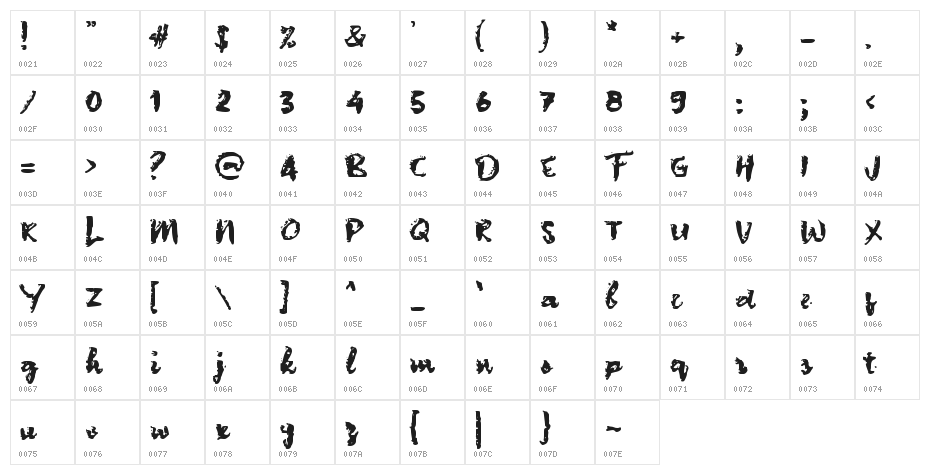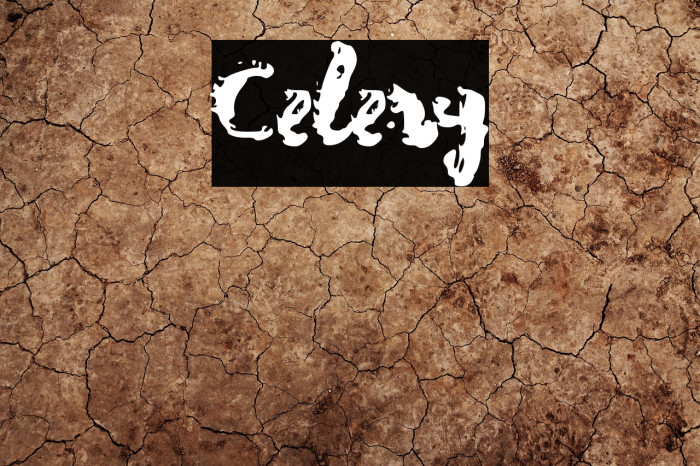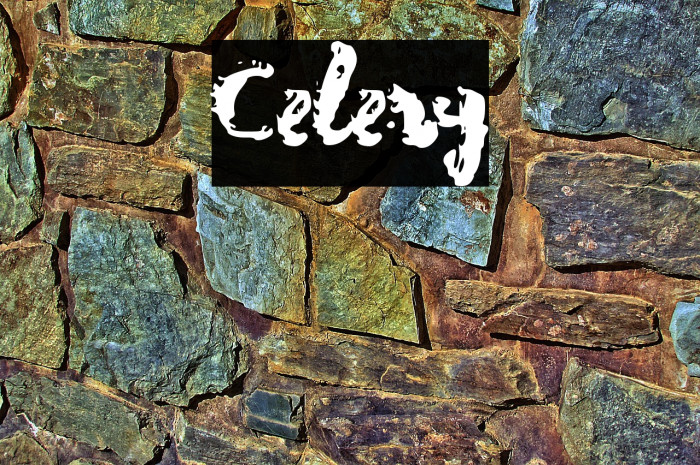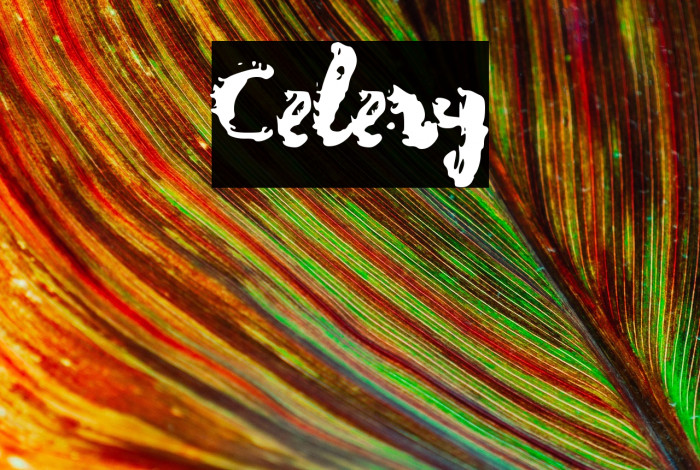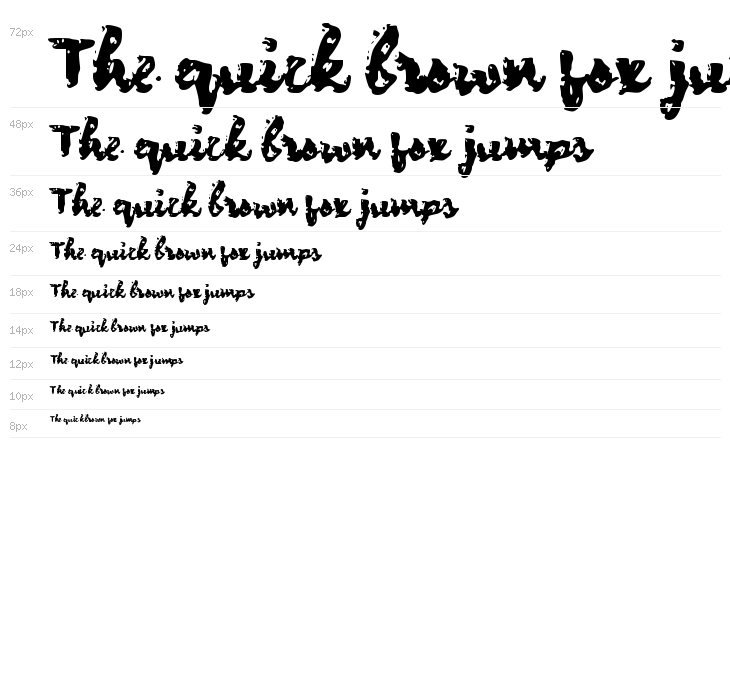
Celery Font
Celery Description
This font exhibits a bold and expressive style, characterized by its rough, brush-like strokes that give it a dynamic and energetic appearance. The letters are irregular and have a hand-painted feel, with varying thicknesses that add to its artistic flair. The uppercase and lowercase letters maintain a consistent style, while the numbers and special characters follow the same expressive design. This font is ideal for projects that require a strong visual impact and a creative touch.
| Overall Style | Artistic, Expressive |
| Proposed Projects | Ideal for posters, album covers, artistic branding, and creative advertising campaigns. |